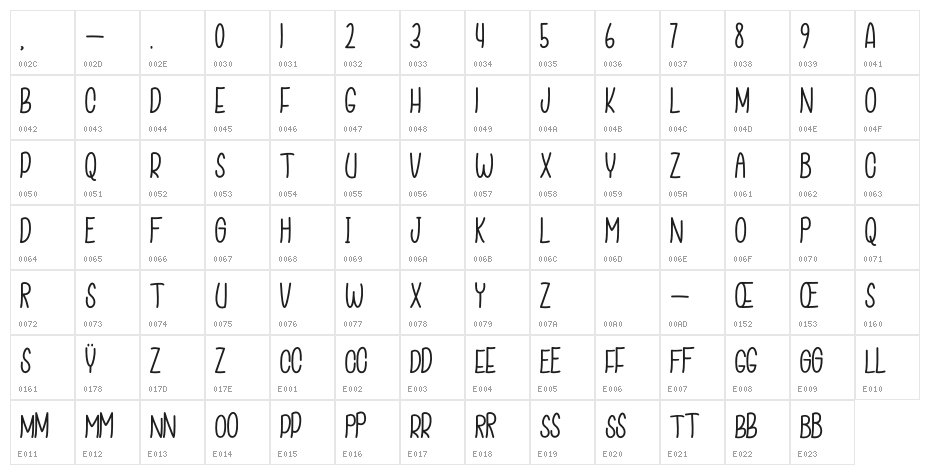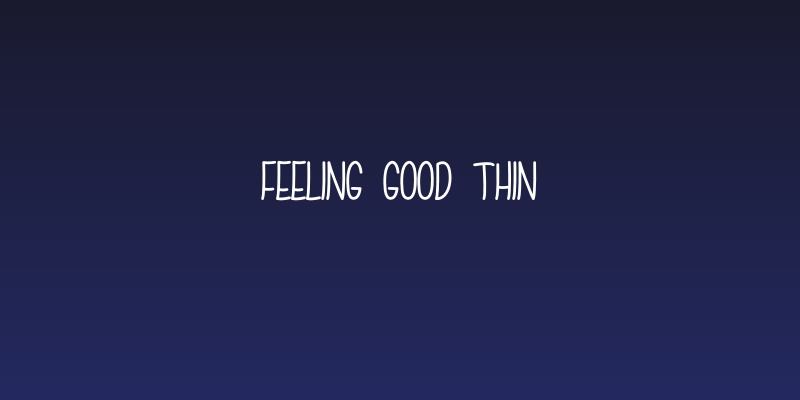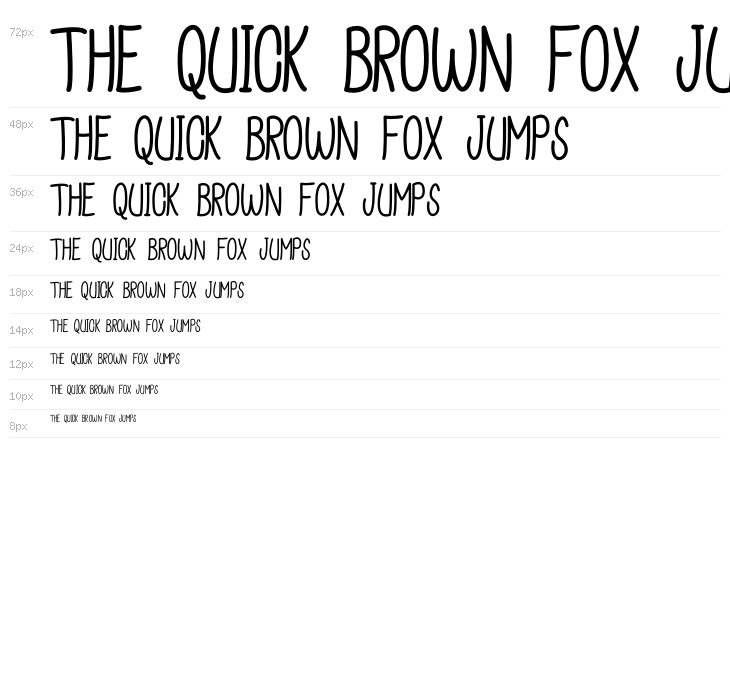
Feeling Good Thin Font
Feeling Good Thin Description
This font features a playful and casual handwritten style, characterized by its smooth, flowing lines and slightly irregular shapes. The letters are tall and narrow, giving it a unique and approachable appearance. The strokes are consistent in thickness, contributing to a clean and modern look. The font includes both uppercase and lowercase letters, numbers, and a selection of special characters. Its informal and friendly design makes it suitable for projects that aim to convey warmth and approachability.
Overall StyleCasual
Use CaseLogos, Headlines, Informal Invitations
Proposed ProjectsIdeal for greeting cards, children's books, casual branding, and social media graphics.